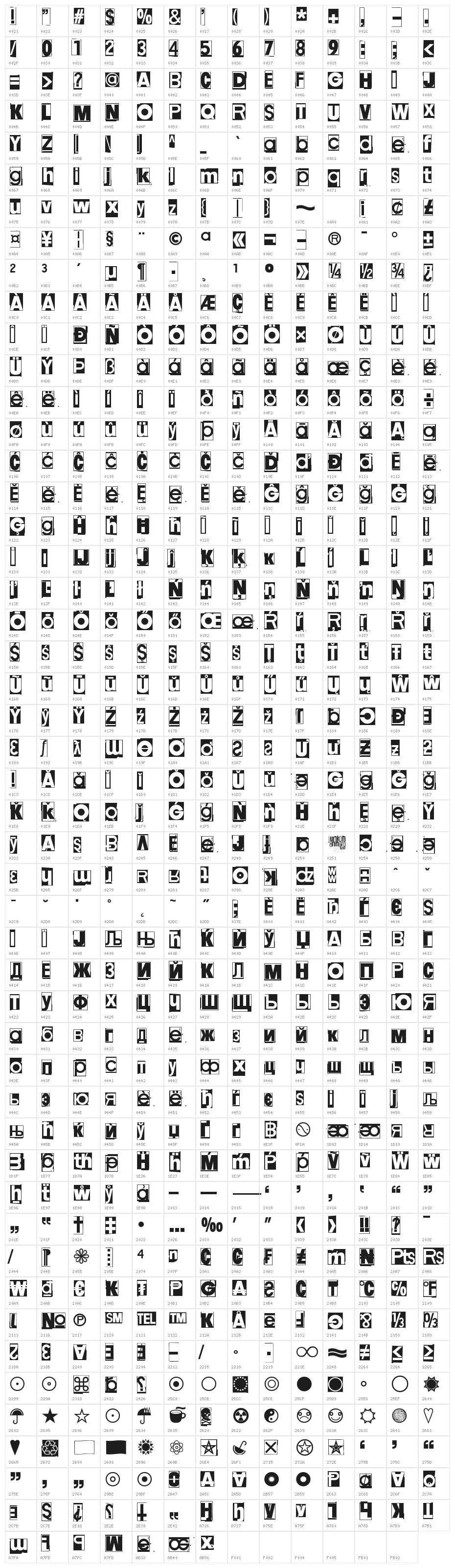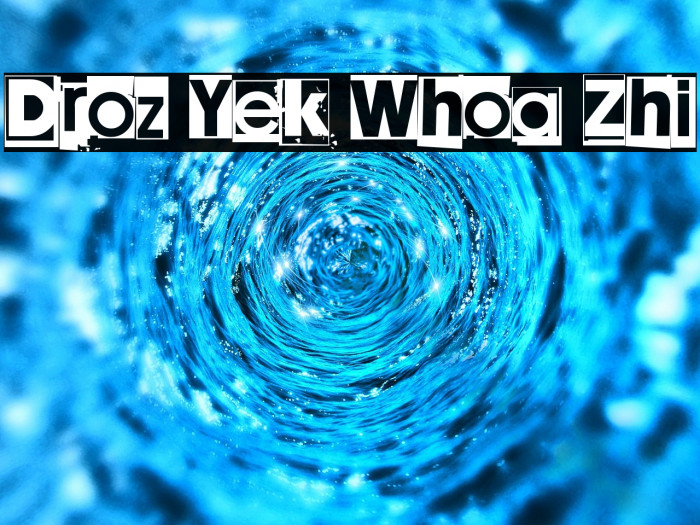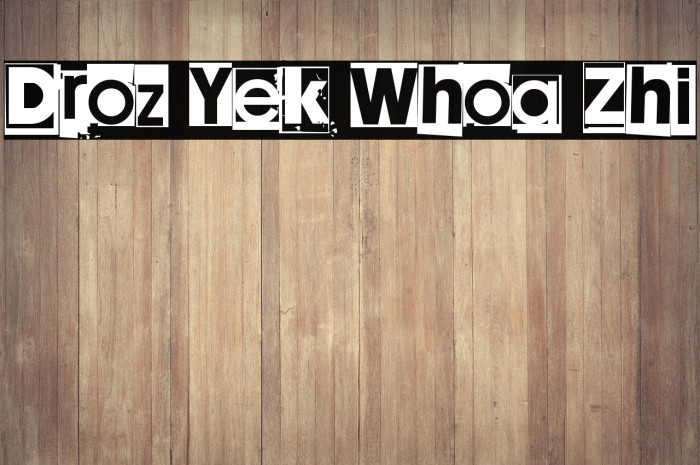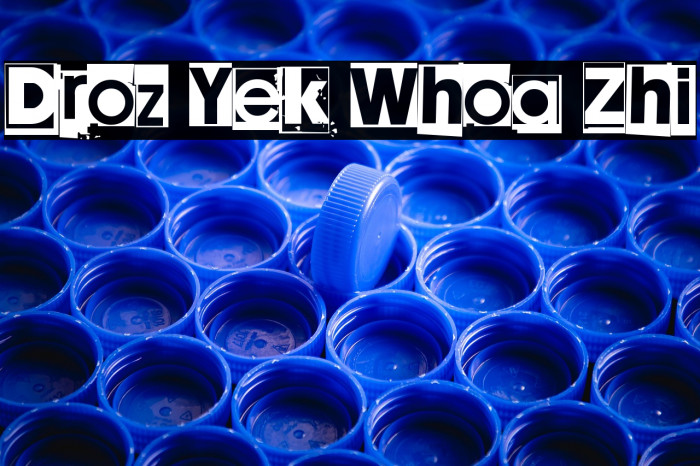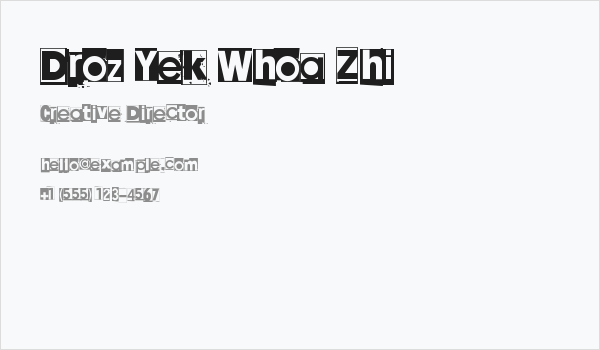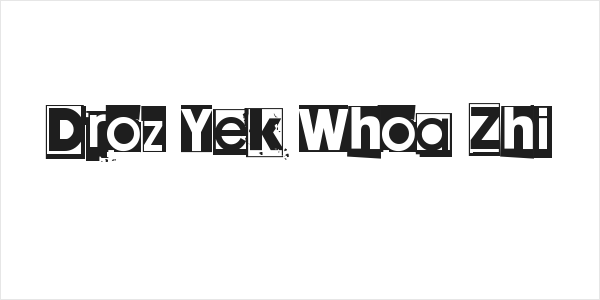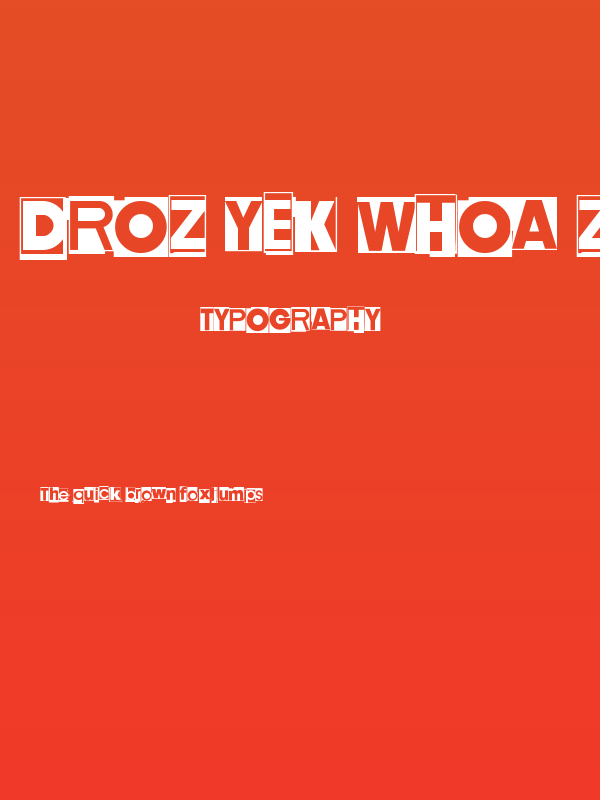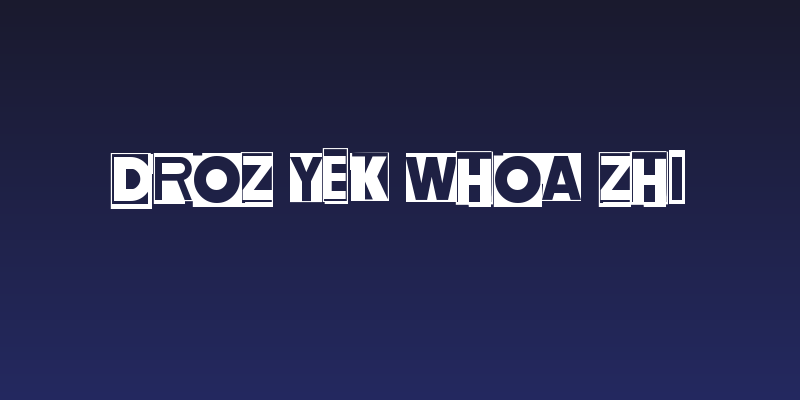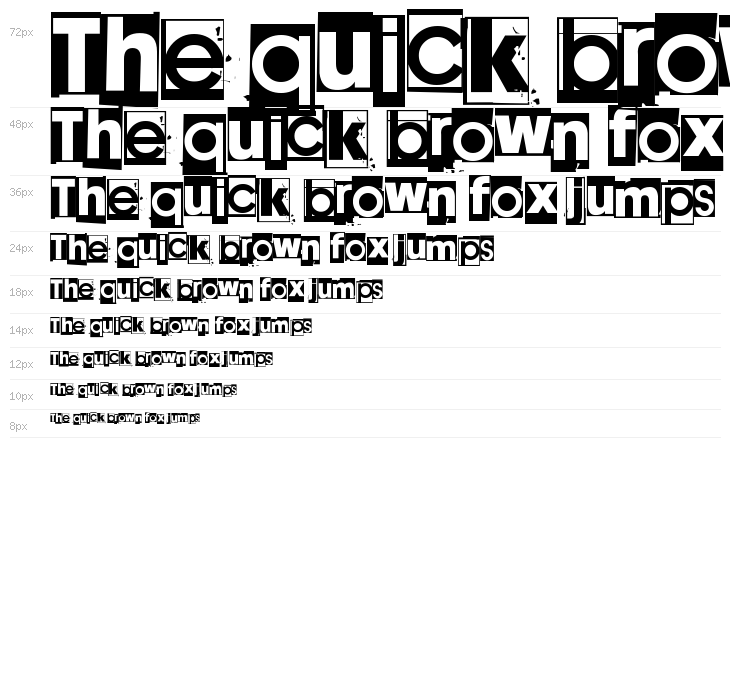
Droz Yek Whoa Zhi Font
Droz Yek Whoa Zhi Description
This font features a bold and dynamic style with a unique cut-out effect, where each character appears to be placed on a separate block, creating a striking visual impact. The uppercase and lowercase letters maintain a consistent width, while the numbers and special characters follow the same bold, blocky design. The font's playful and artistic nature makes it stand out, with each character having a slightly different alignment, adding to its quirky and creative appeal. The high contrast between the thick strokes and the negative space enhances its readability and visual interest.
| Overall Style | Modern, Artistic |
| Proposed Projects | Ideal for creative projects such as posters, album covers, and branding that require a bold and artistic touch. |